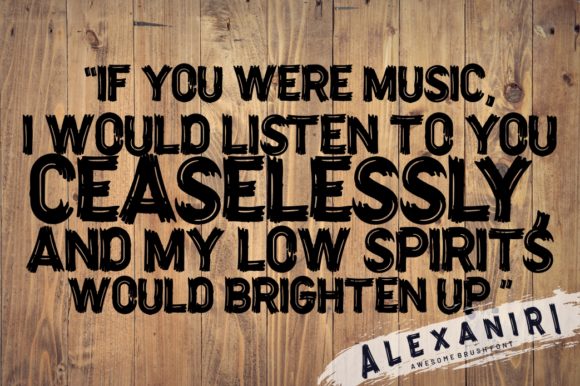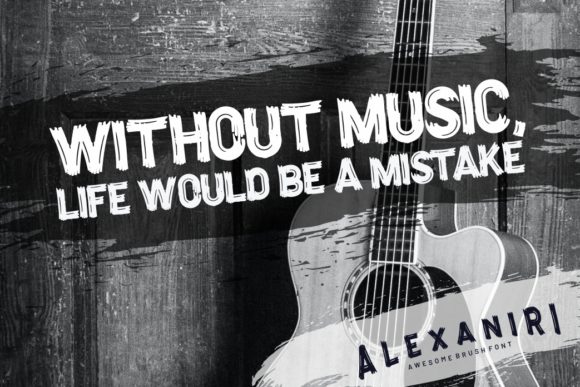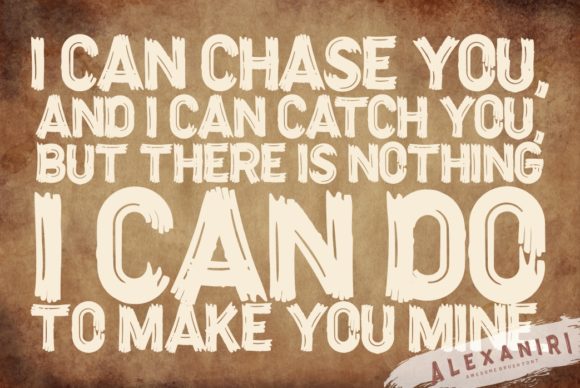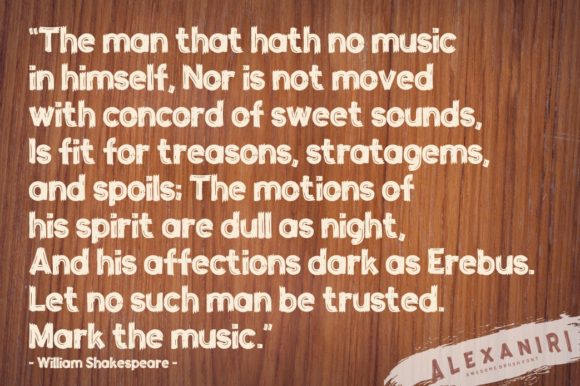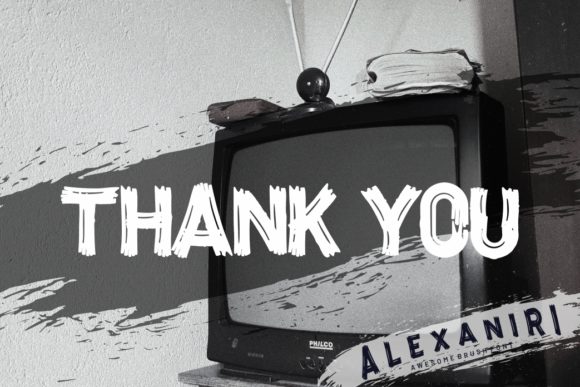
Alexaniri Font
About Alexaniri Font
Alexaniri is a casual, fun handwritten font, created by using a brush pen. Clean and a little bit quirky, this font is the perfect fit for all of your logos, branding, social media, and crafty DIY projects.